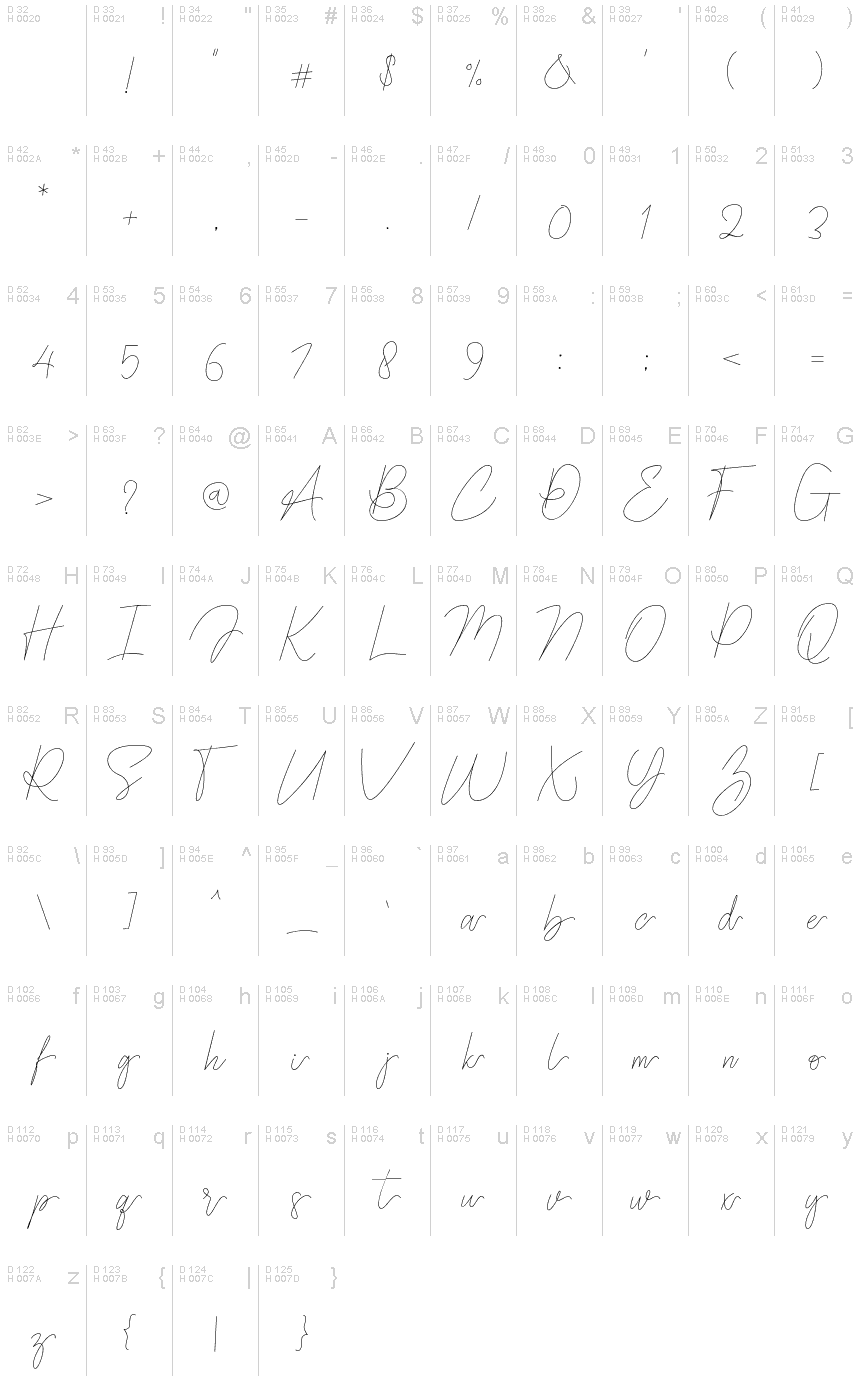
Bastians
Bastians, a mesmerizing handwritten font, crafted by the talented Infontree Store. With its ultra-light weight, this font exudes elegance and sophistication. Its graceful curves and organic strokes effortlessly mimic the beauty of handwritten script. Perfect for wedding invitations, luxurious branding projects, or creating an intimate atmosphere in editorial designs. Bastians adds a touch of refined charm to any project seeking a delicate and graceful aesthetic. Embrace the allure of this exquisite typeface and elevate your designs to new heights of elegance and sophistication with Bastians.